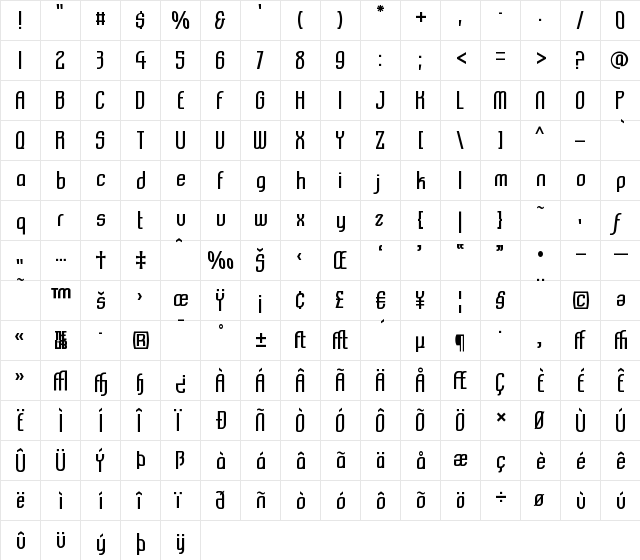
Komikazba Regular
| Designer | Apostrophe |
Design Context for Komikazba Typeface
Komikazba is a composed and adaptable typeface that performs quietly and consistently across a wide range of design contexts.